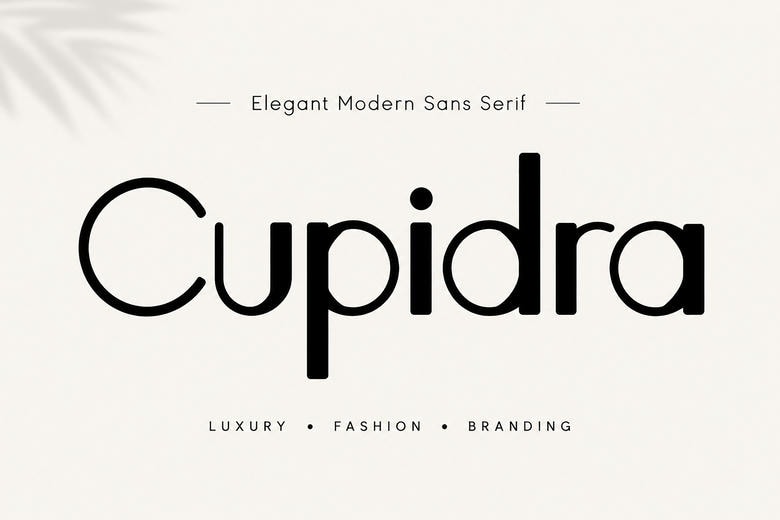
Cupidra Font
Cupidra is a modern sans-serif typeface with clean geometric curves and a minimalist look. It works well for luxury branding, fashion editorials, logos, packaging, and other contemporary visual projects, offering a simple yet sophisticated style.
If you are working on logos, fashion campaigns, beauty packaging, social media posts, website headers, or magazine layouts, Cupidra gives your work a polished and high-end look.
Cupidra Sans Serif Font